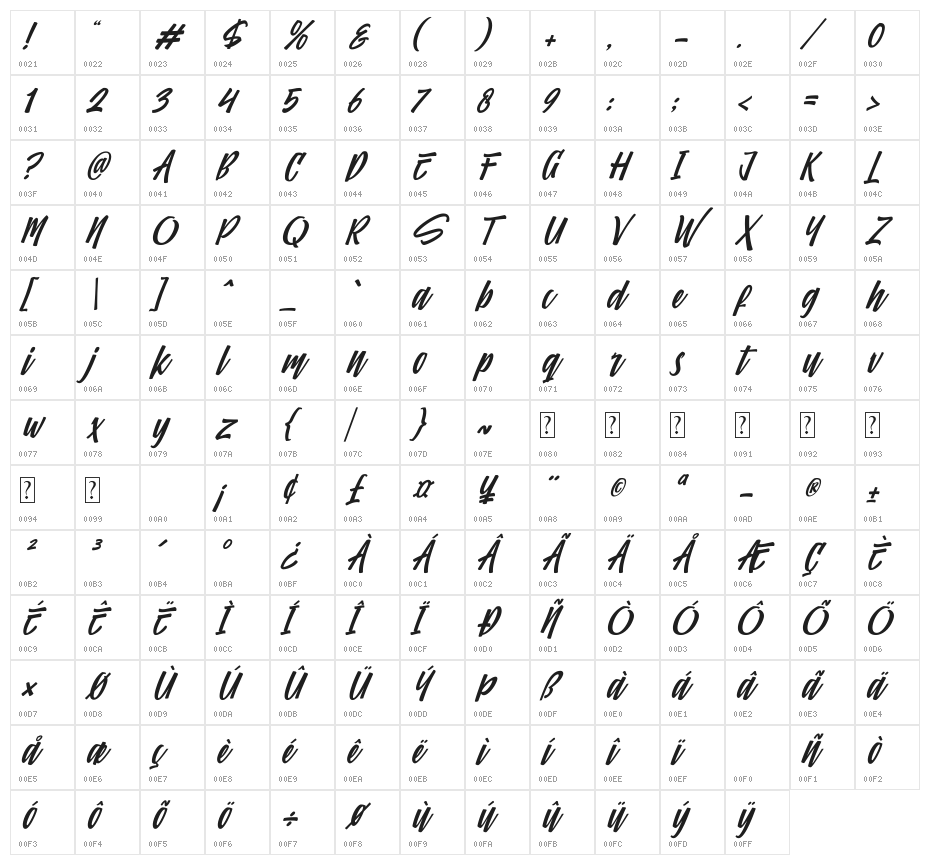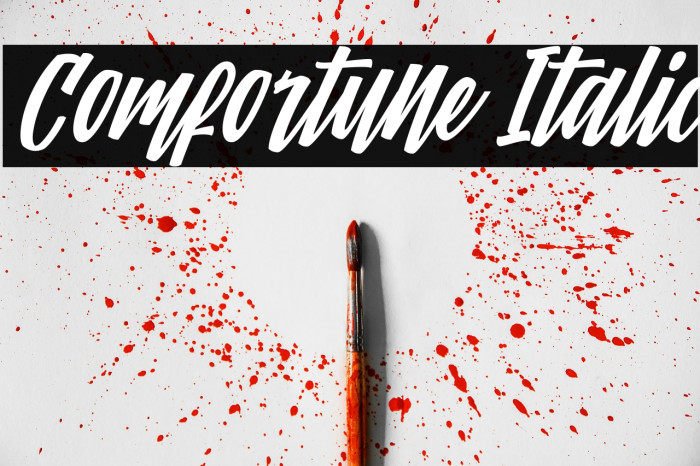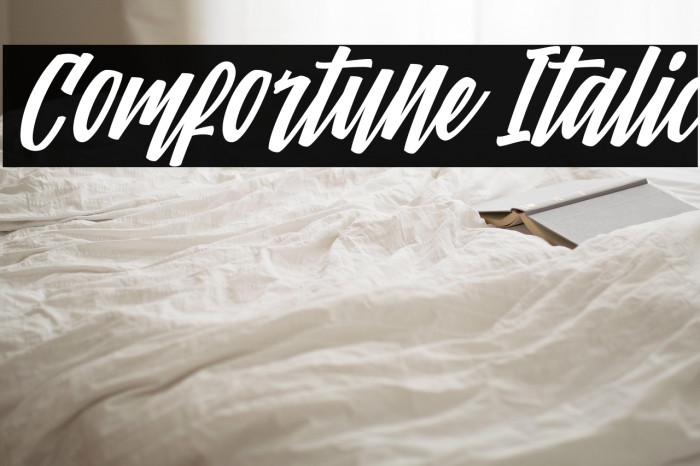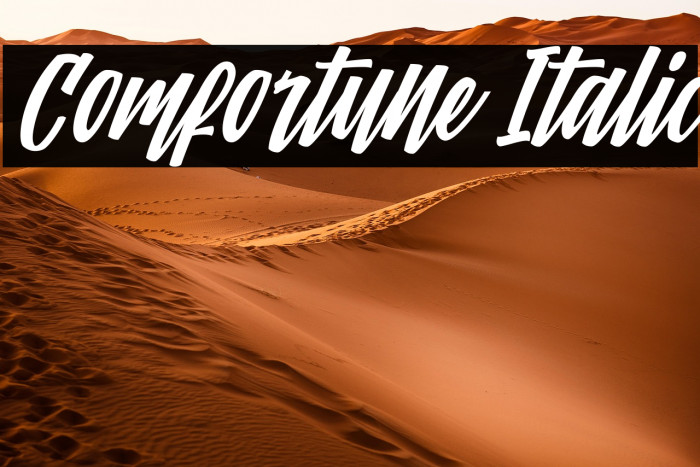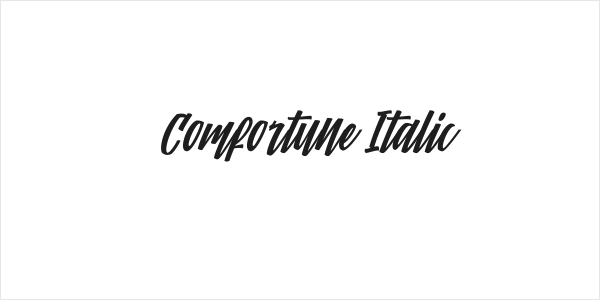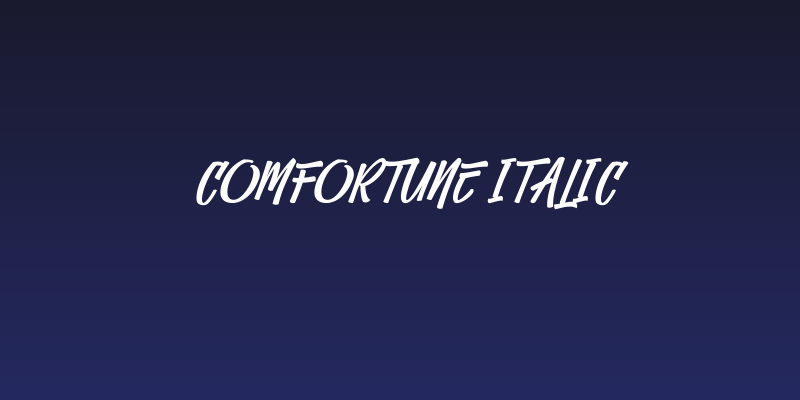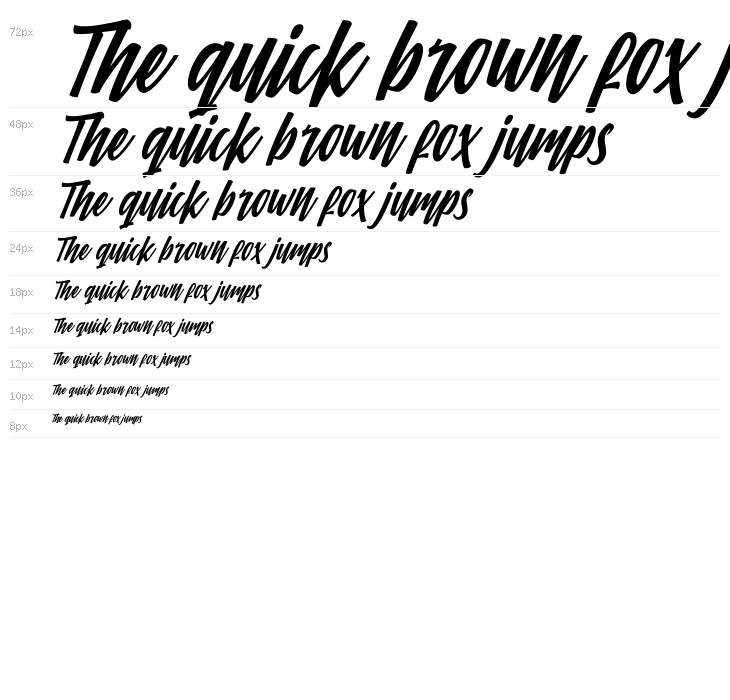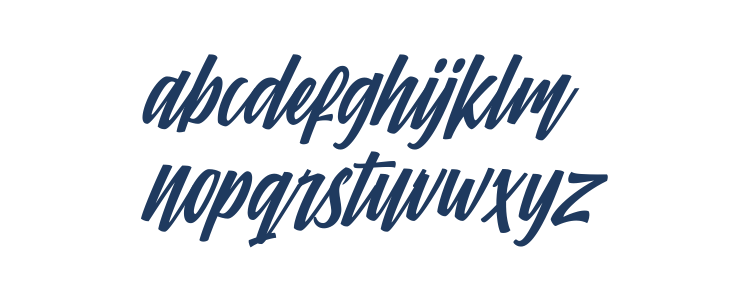
Comfortune Italic Font
Comfortune Italic Description
This font features a dynamic and energetic script style with a pronounced italic slant. The characters are bold and fluid, with a hand-drawn appearance that conveys a sense of movement and flair. The uppercase letters are tall and slightly condensed, while the lowercase letters maintain a consistent flow with smooth curves and connections. The numerals are bold and align well with the overall style, making them easily legible. Special characters are creatively integrated, maintaining the font's lively aesthetic. The overall impression is one of bold expressiveness, suitable for making a strong visual impact.